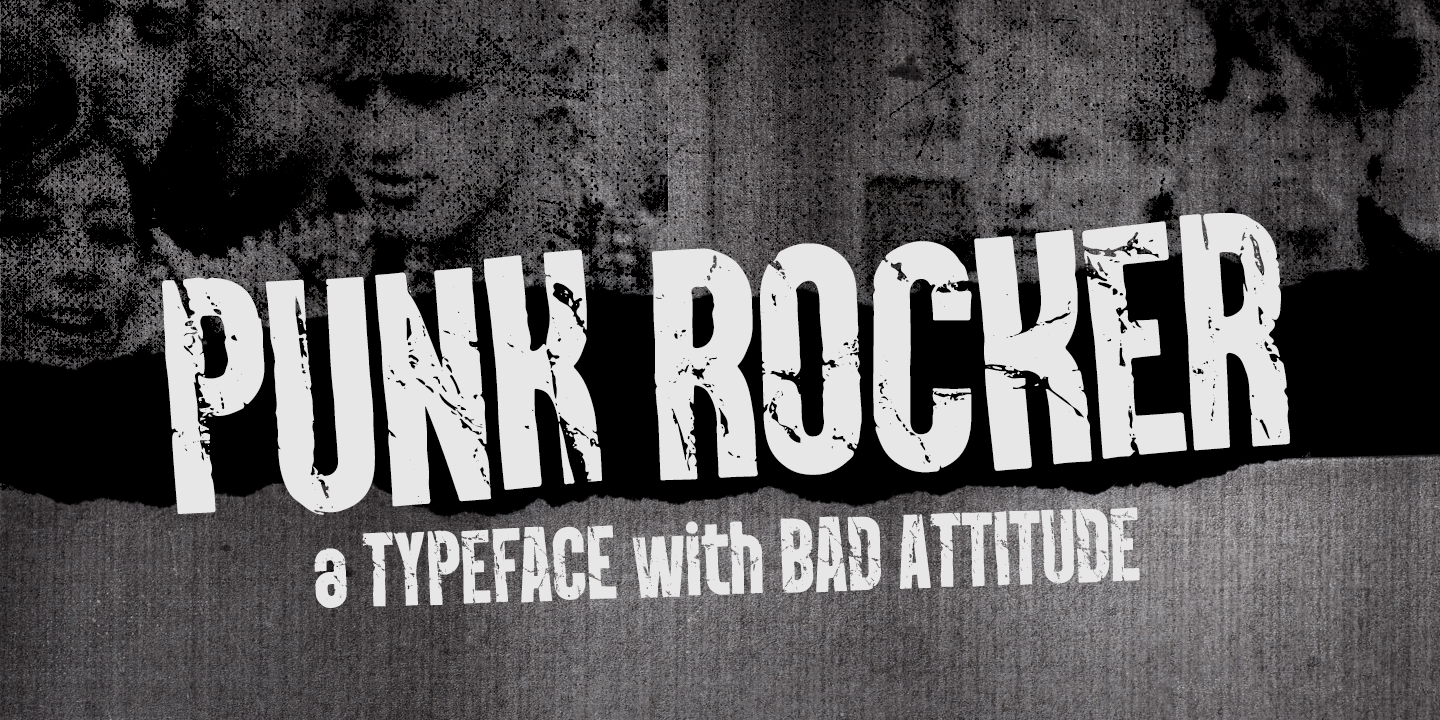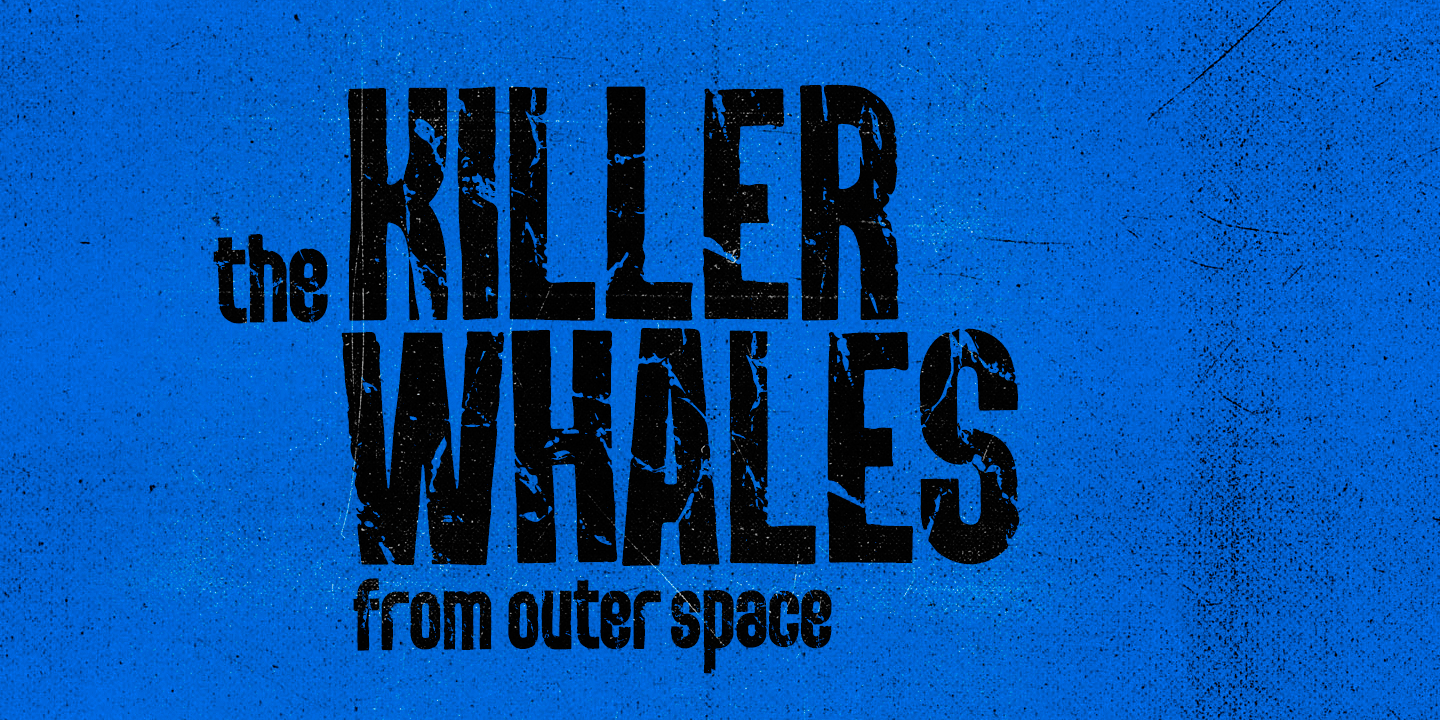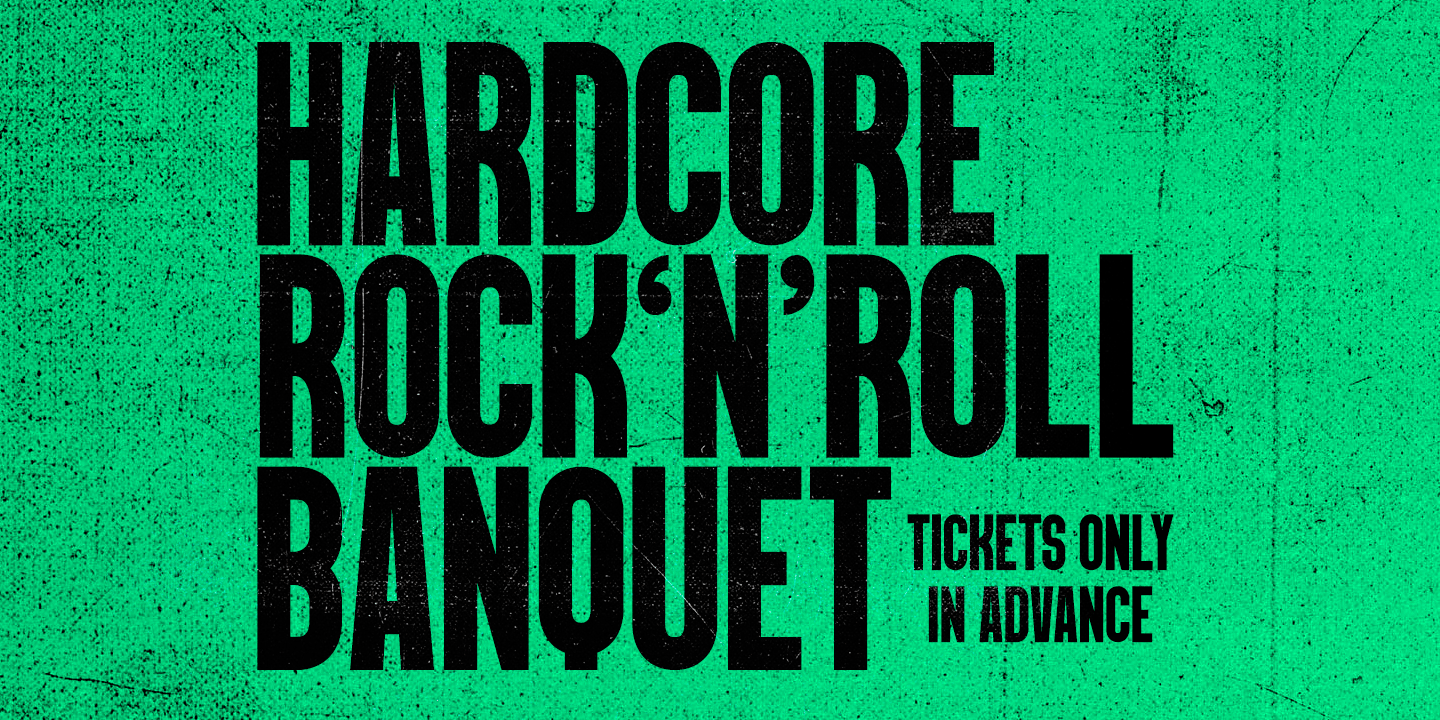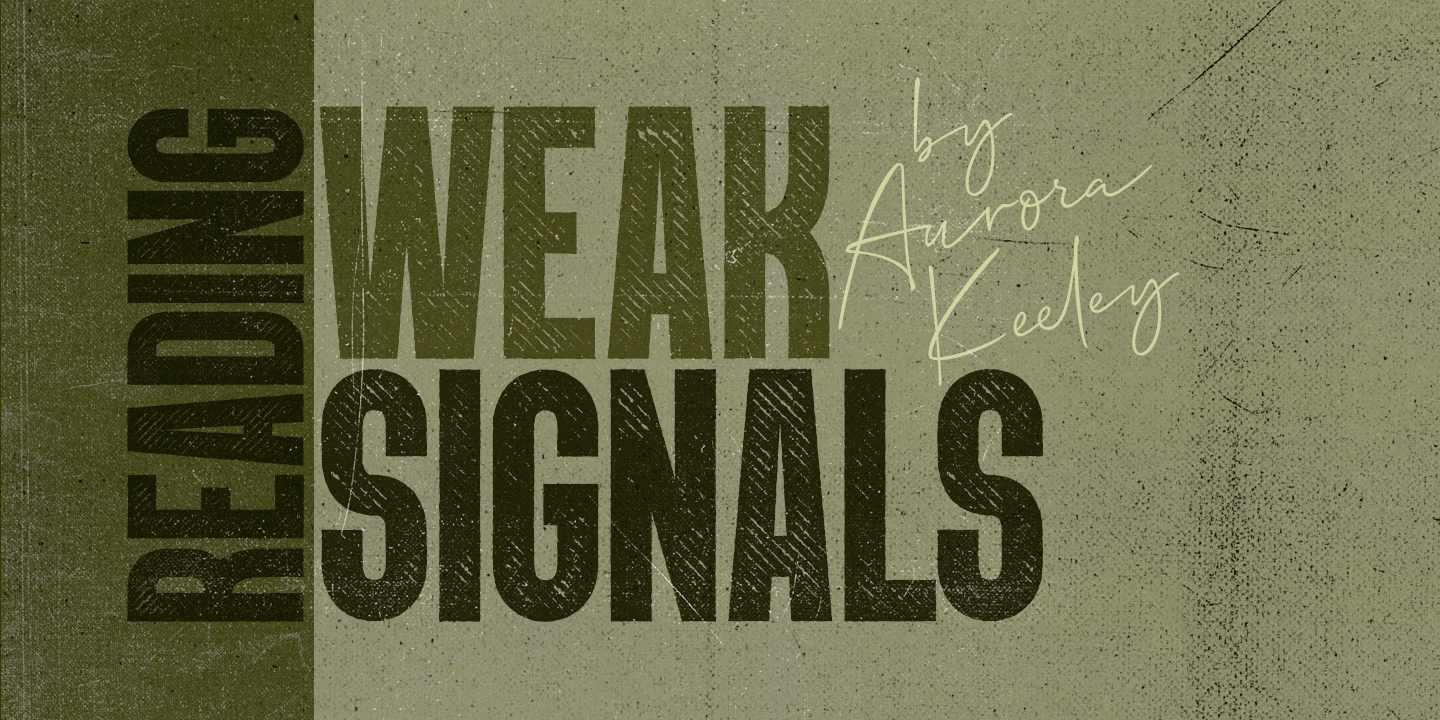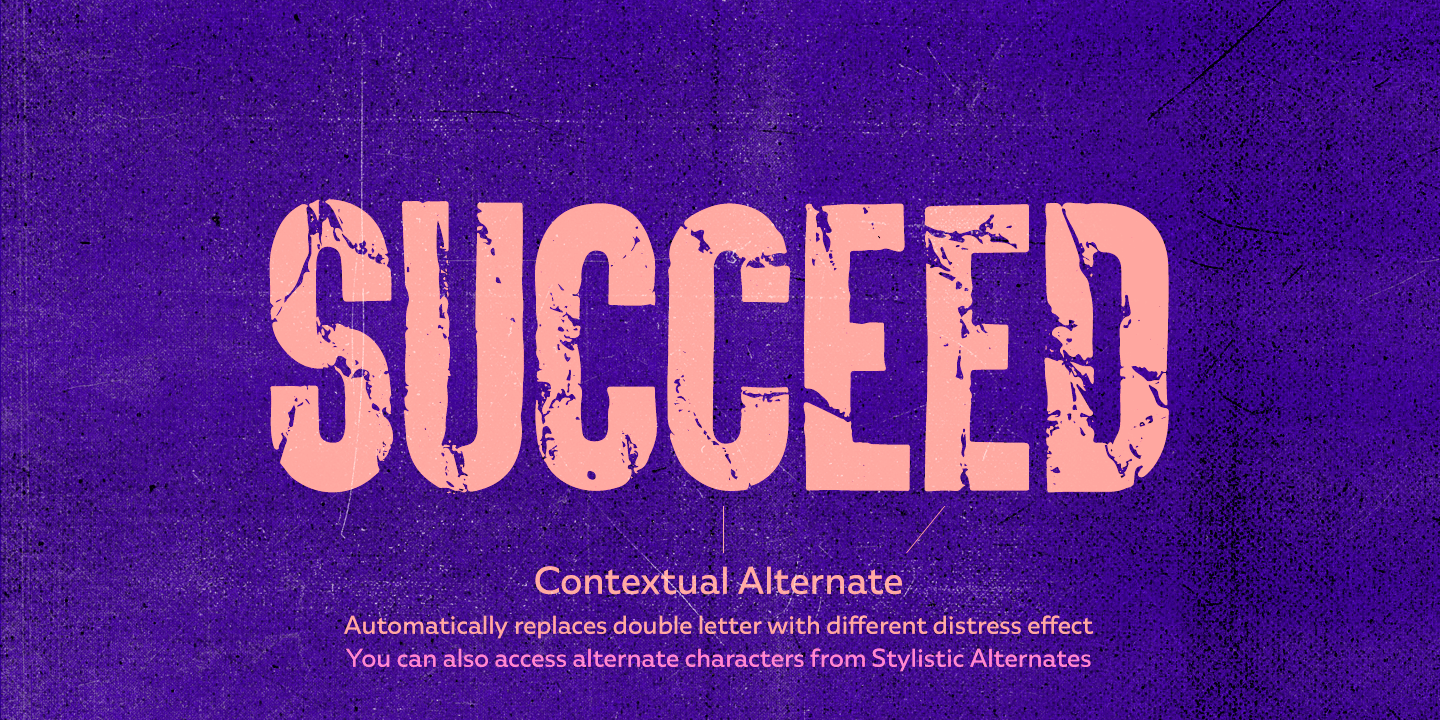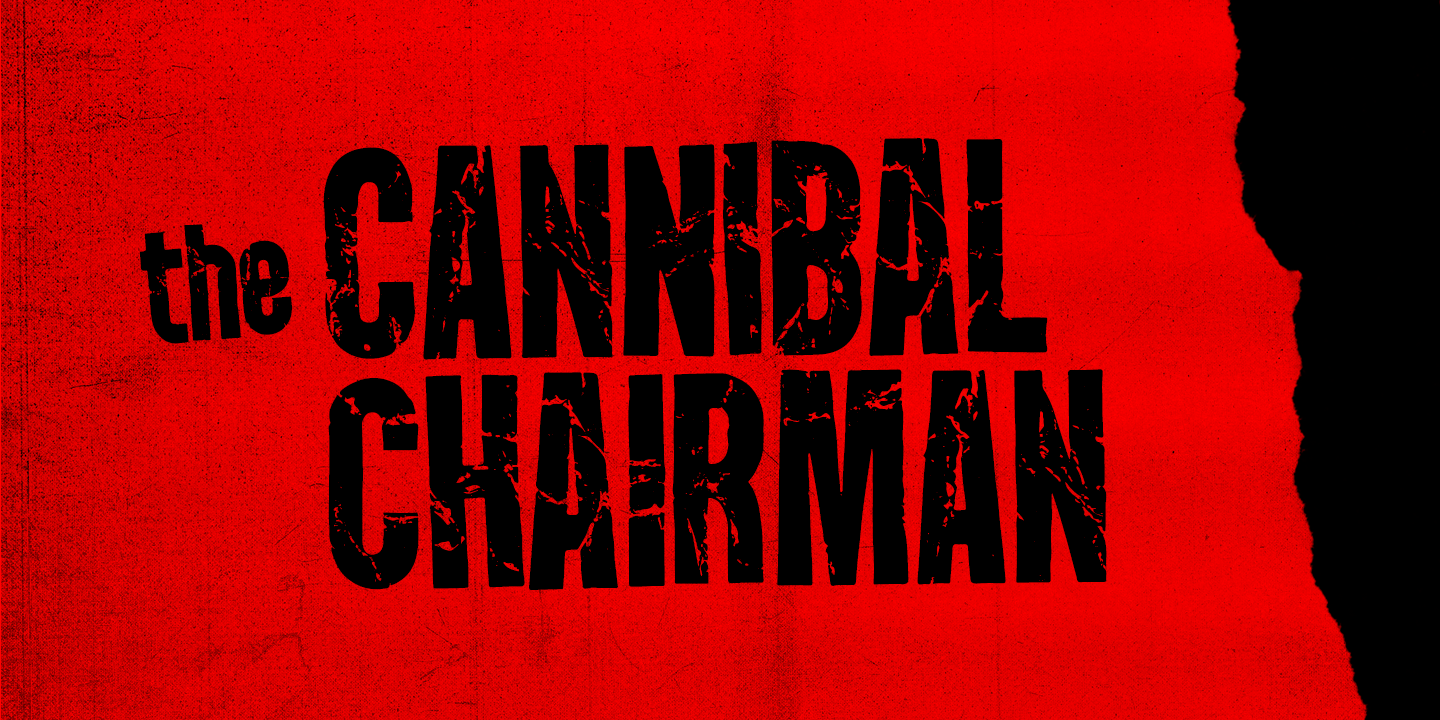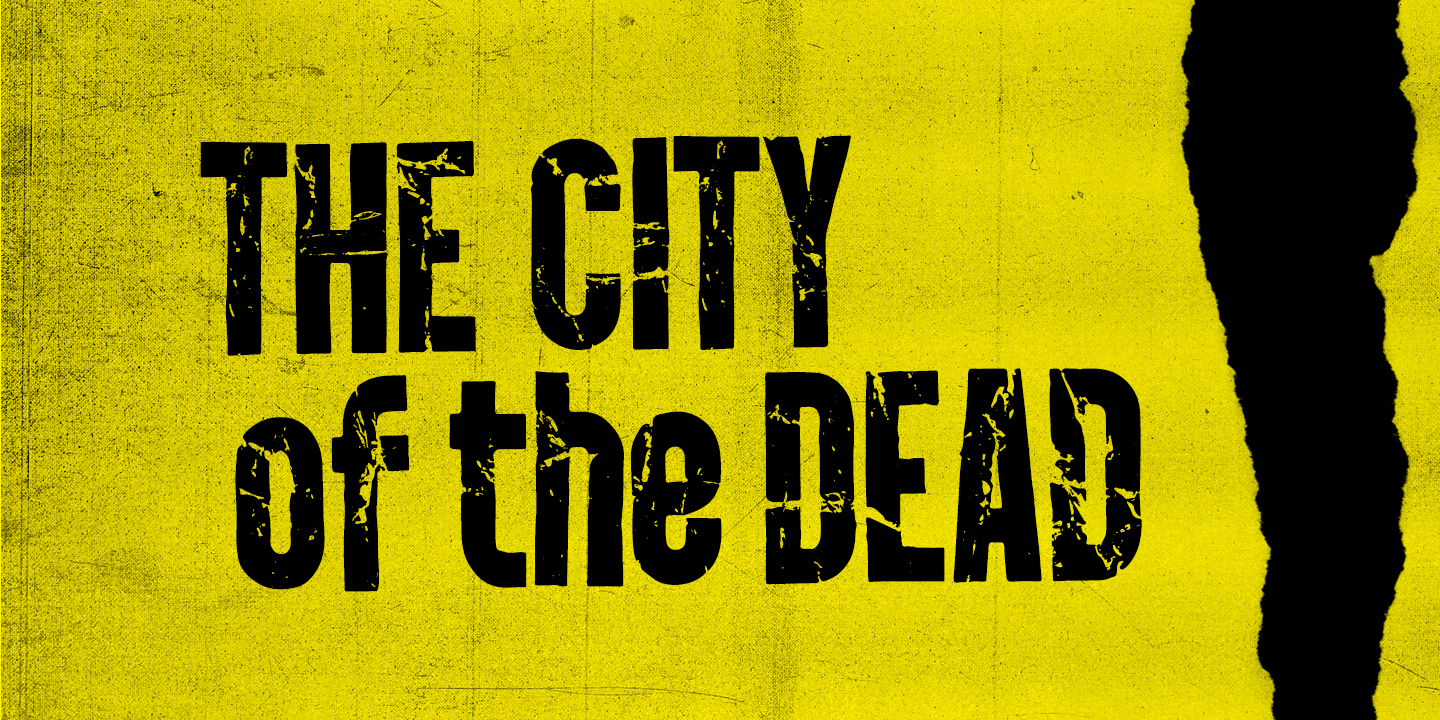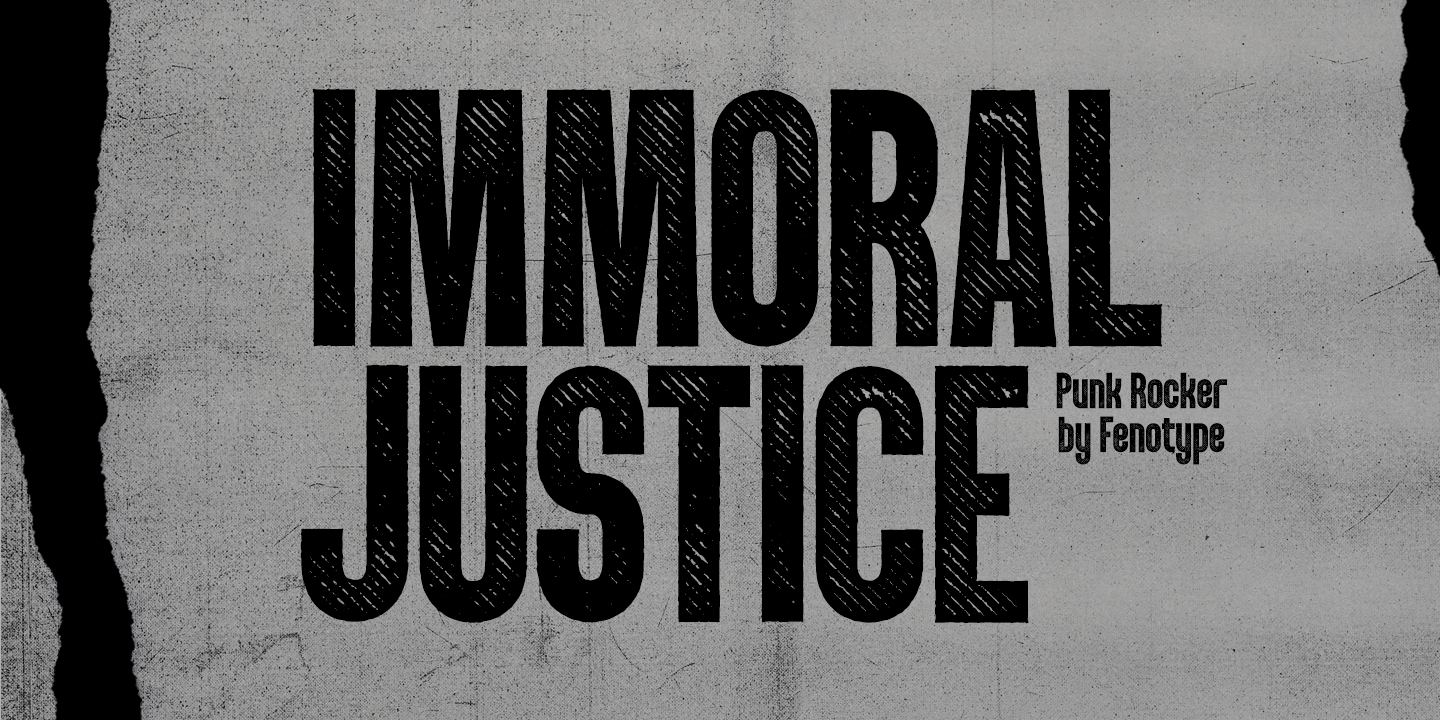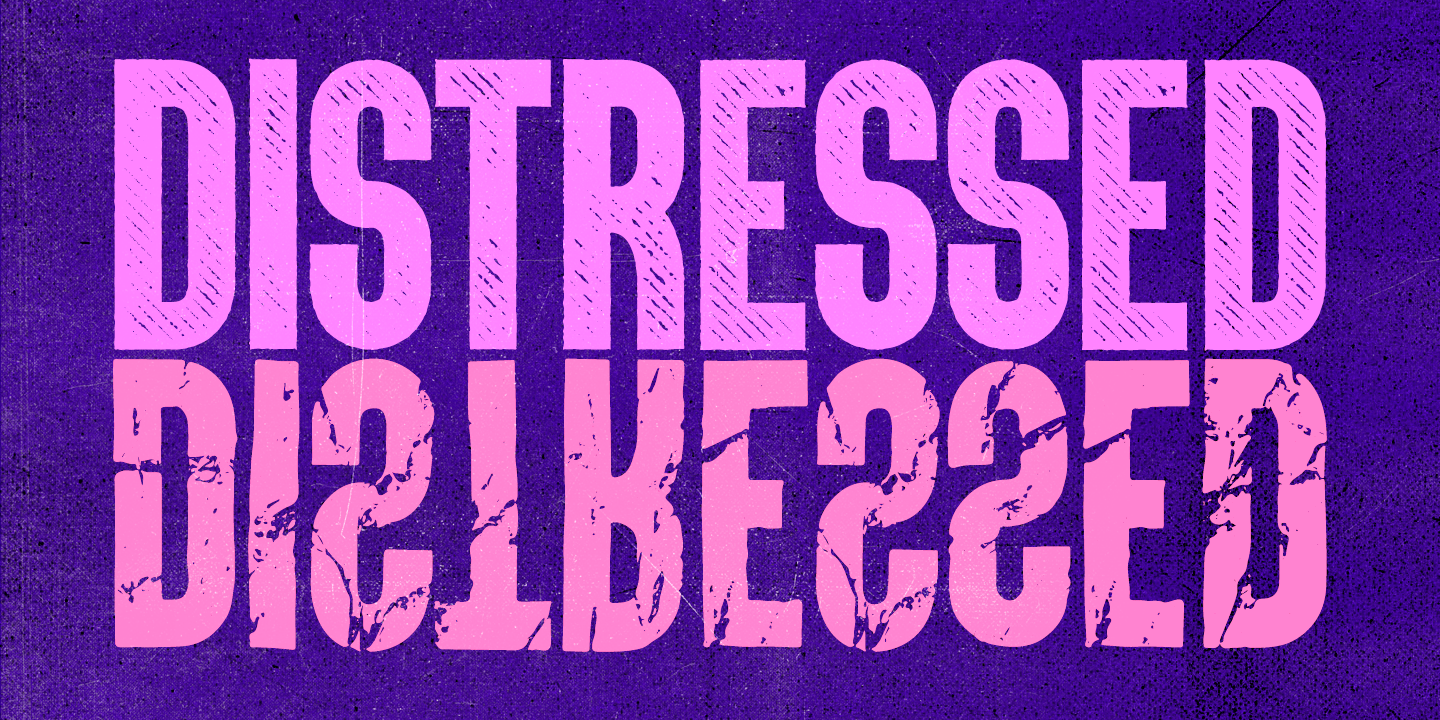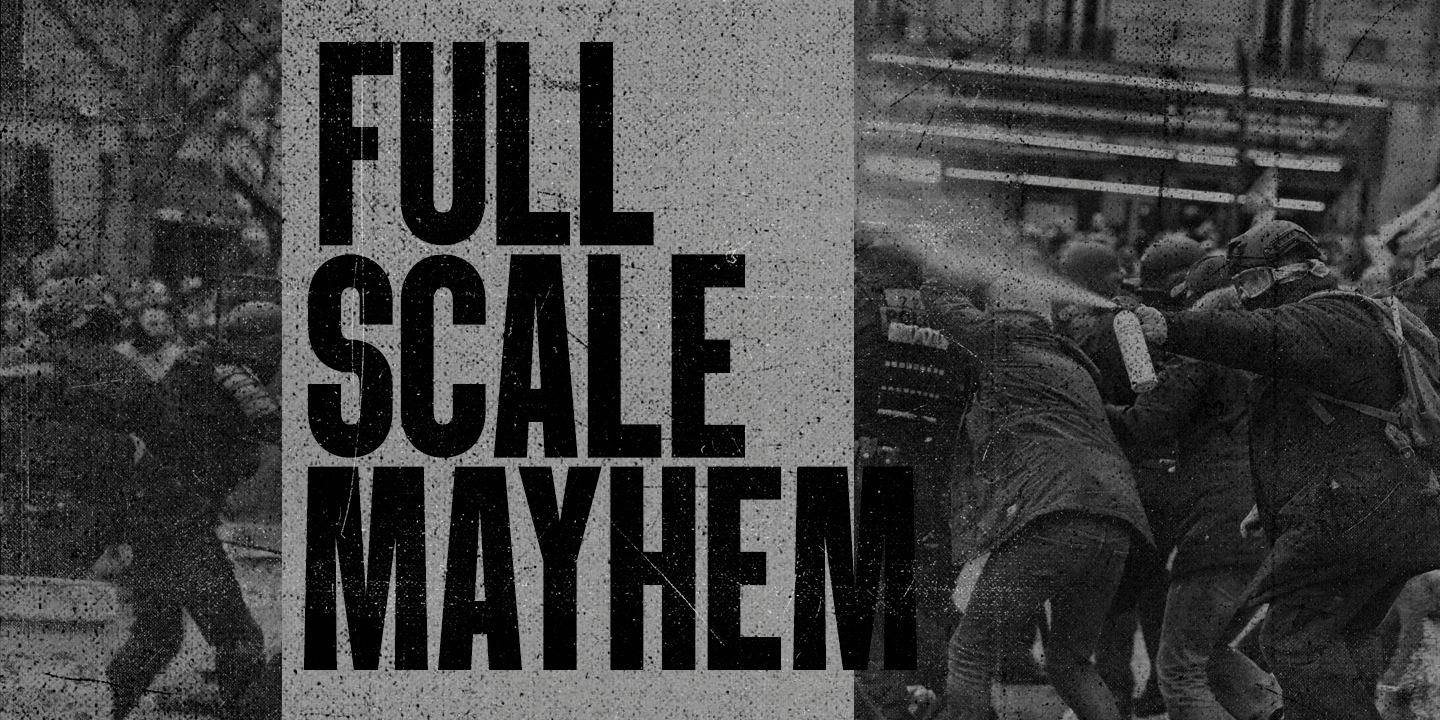
Punk Rocker
Font Family by Fenotype
PunkRocker is a bold condensed sans-serif with three versions and plenty of attitude. PunkRocker is awesome for creating strong tight square text boxes that scream for attention: it's ideal for movie posters, single covers, as a supertool for fast graphic design.
PunkRocker has three versions: Regular which is ?clean?, Rough which has the worn-out appearance of a punk-poster or a gig poster that has been outside too long, and Stamp which has rugged outlines and print texture inside characters.
Textured versions of PunkRocker have double characters for every standard character: Contextual Alternates will automatically replace any double letter with alternate that has different texture to avoid repetition and keep the appearance more authentic. You can also access these alternates by turning on Stylistic Alternates or via glyph palette.